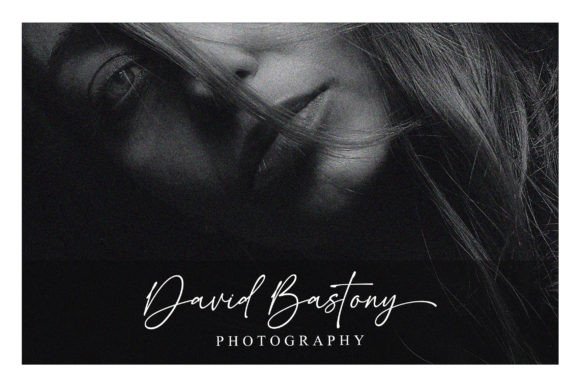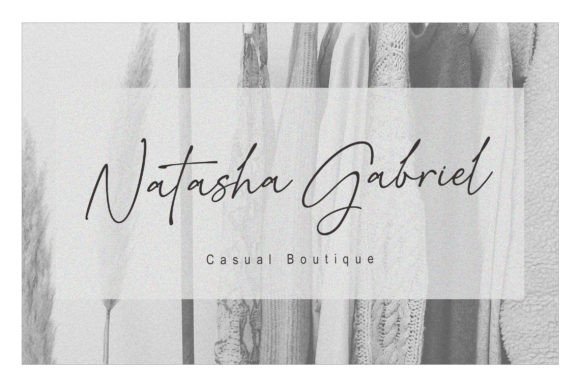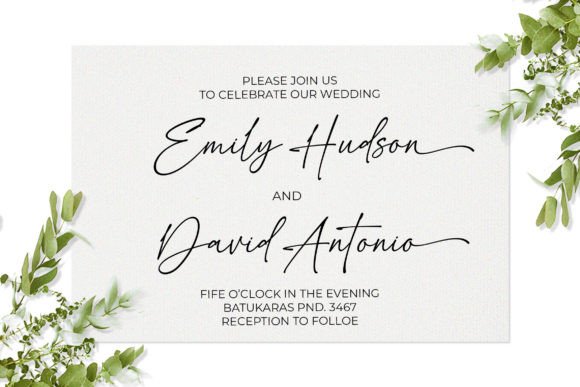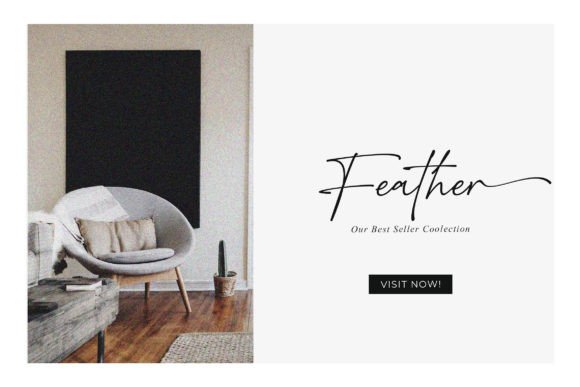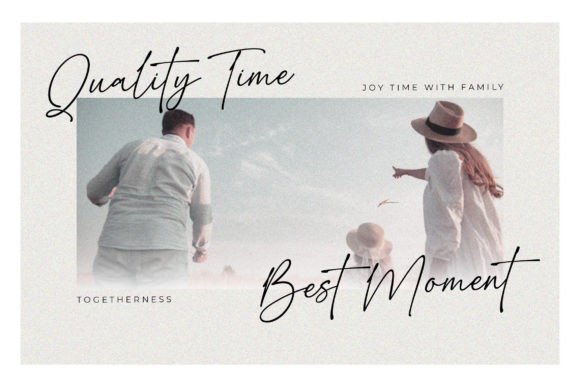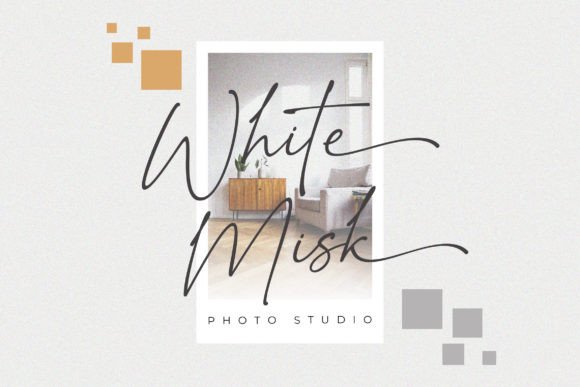
The Perfect Touch: Unveiling Breathney Font
There’s something magical about scribbling down a love letter or a heartfelt note by hand – the way the pen glides across the paper, the subtle imperfections, and the genuine emotion that seeps through every curve. It’s this same essence that the designers behind Breathney Font aimed to capture, creating a beautiful, natural handwritten font that exudes charm.
Breathney Font is more than just a typeface – it’s a way to add a personal touch to graphic designs, making them feel warm, authentic, and genuinely human. With its soft, curved lines, it’s the perfect choice for feminine, friendly projects like wedding invites, logos, and posters. Whether you’re a seasoned designer or a creative enthusiast, Breathney Font is a valuable addition to your toolkit, allowing you to convey a heartfelt message with ease.
- Unique Characteristics: Breathney Font features a unique blend of modern and elegant design elements, with subtle flourishes and curves that add a touch of sophistication to any text.
- Kerning and Ligatures: Breathney Font includes advanced kerning and ligature tables, ensuring that text is rendered with precision and elegance, even in complex layouts.
As a designer, I was excited to dive into the Breathney Font and see what it had to offer. Overall, I think this font has some great qualities that make it worth considering for certain projects.
- The Breathney Font has a unique and modern feel that could work well for trendy or avant-garde designs.
- The font is highly legible, even at smaller sizes, making it a great choice for body text or smaller headings.
- The font’s varied weights and styles offer a lot of flexibility for customizing the look of your design.
- The Breathney Font may be too bold or overpowering for more conservative or traditional designs.
- The font’s unique style may not be to everyone’s taste, which could limit its appeal in certain contexts.
- The font’s availability is limited to a few select platforms, which may be a drawback for designers who prefer to work with a wide range of fonts.
Overall, I think the Breathney Font is a solid choice for designers who are looking for a modern and trendy font to add some flair to their designs. However, it may not be the best fit for every project, and designers should carefully consider the context and goals of their design before using this font.
The Breathney font is ideal for creative and artistic projects. Use it for:
- Artistic quotes and posters.
Remember to experiment with different font sizes, colors, and styles to get the most out of the Breathney font.
The recommended font size for optimal readability with Breathney is between 12-24 points. This allows for clear and legible text, while also maintaining the font’s unique characteristics and aesthetic appeal.
Yes, Breathney is a highly customizable font that supports advanced features such as OpenType and font ligatures. This allows designers to create unique and tailored typography that fits their specific design needs and brand identity.